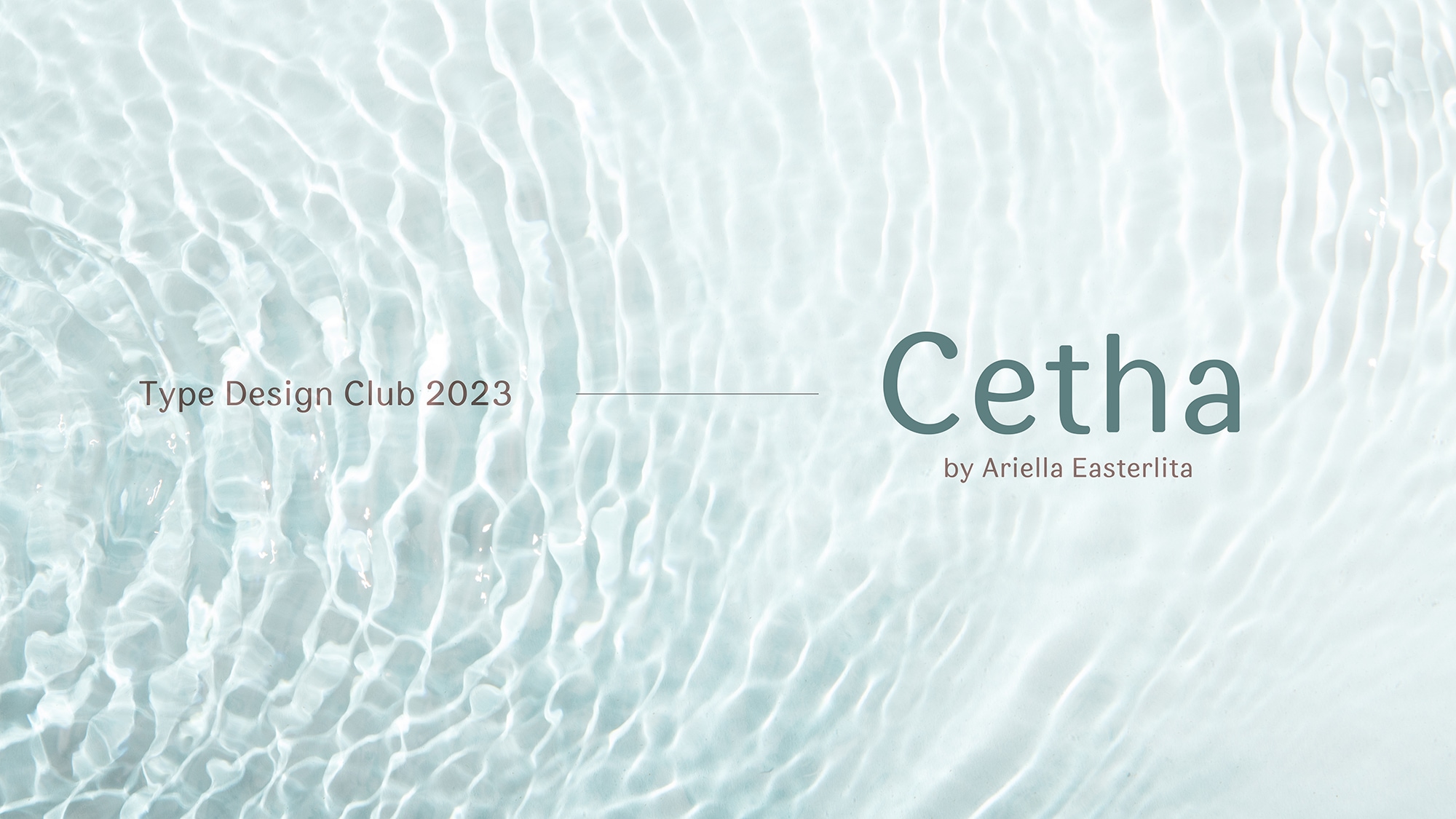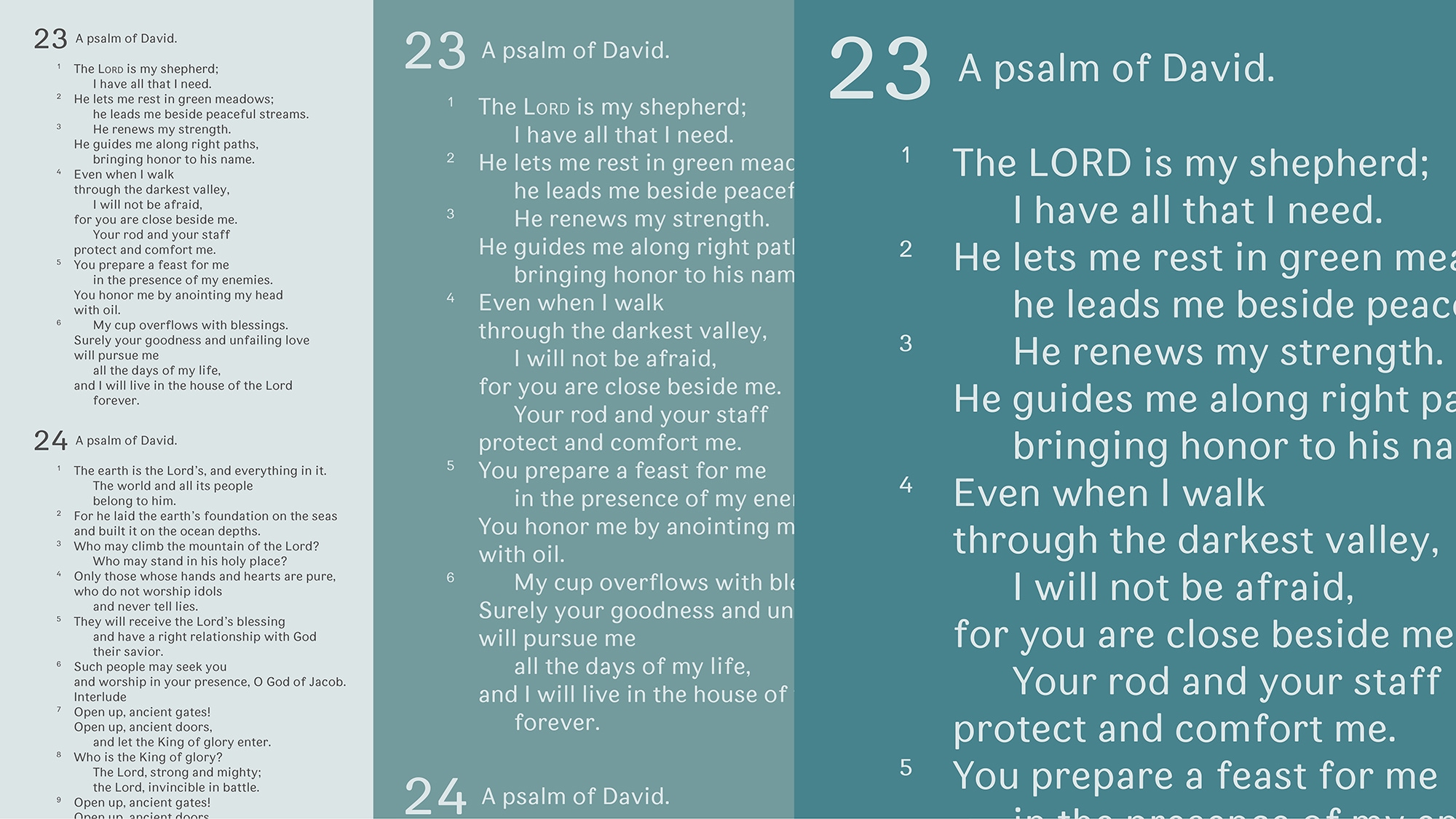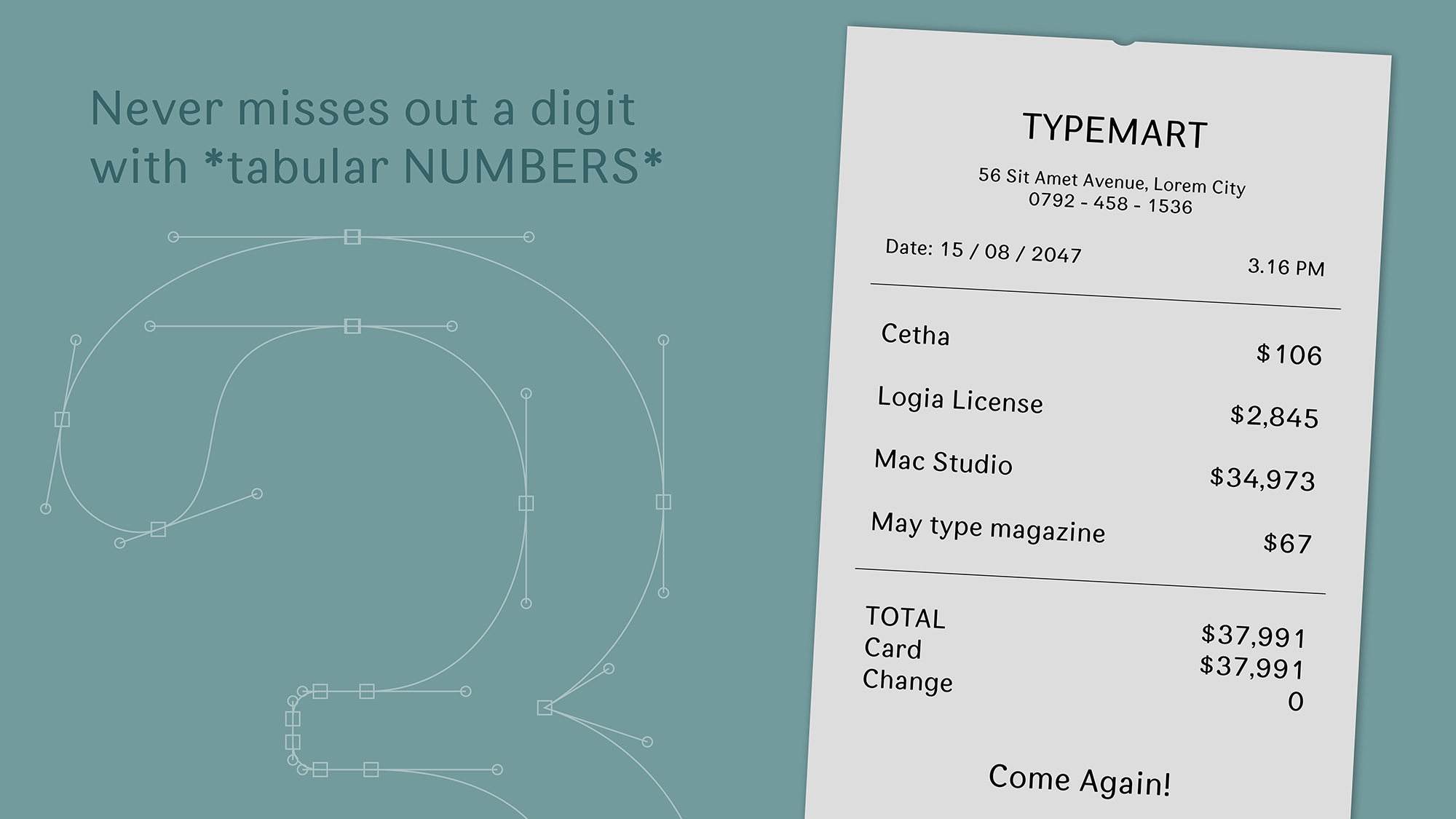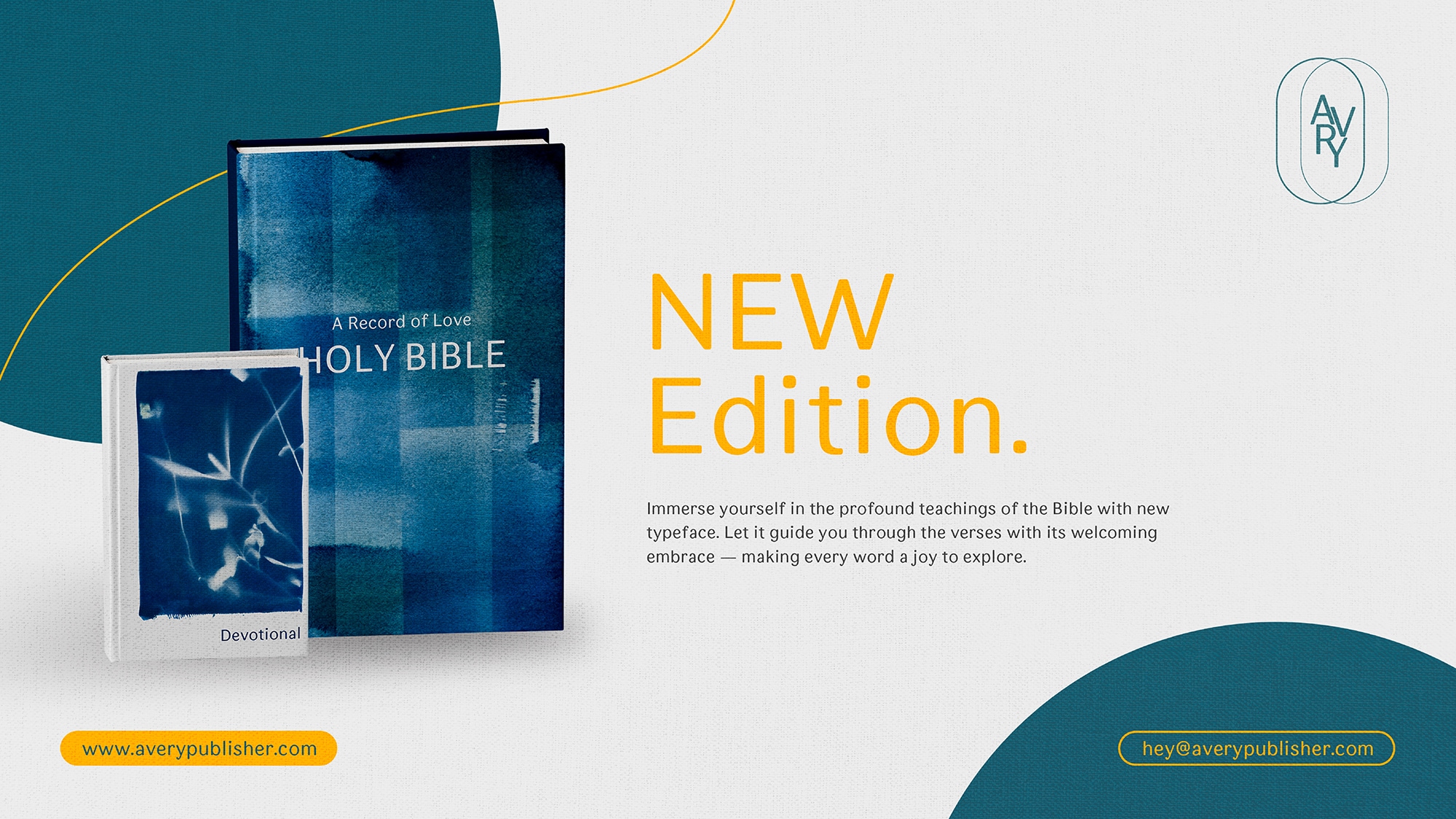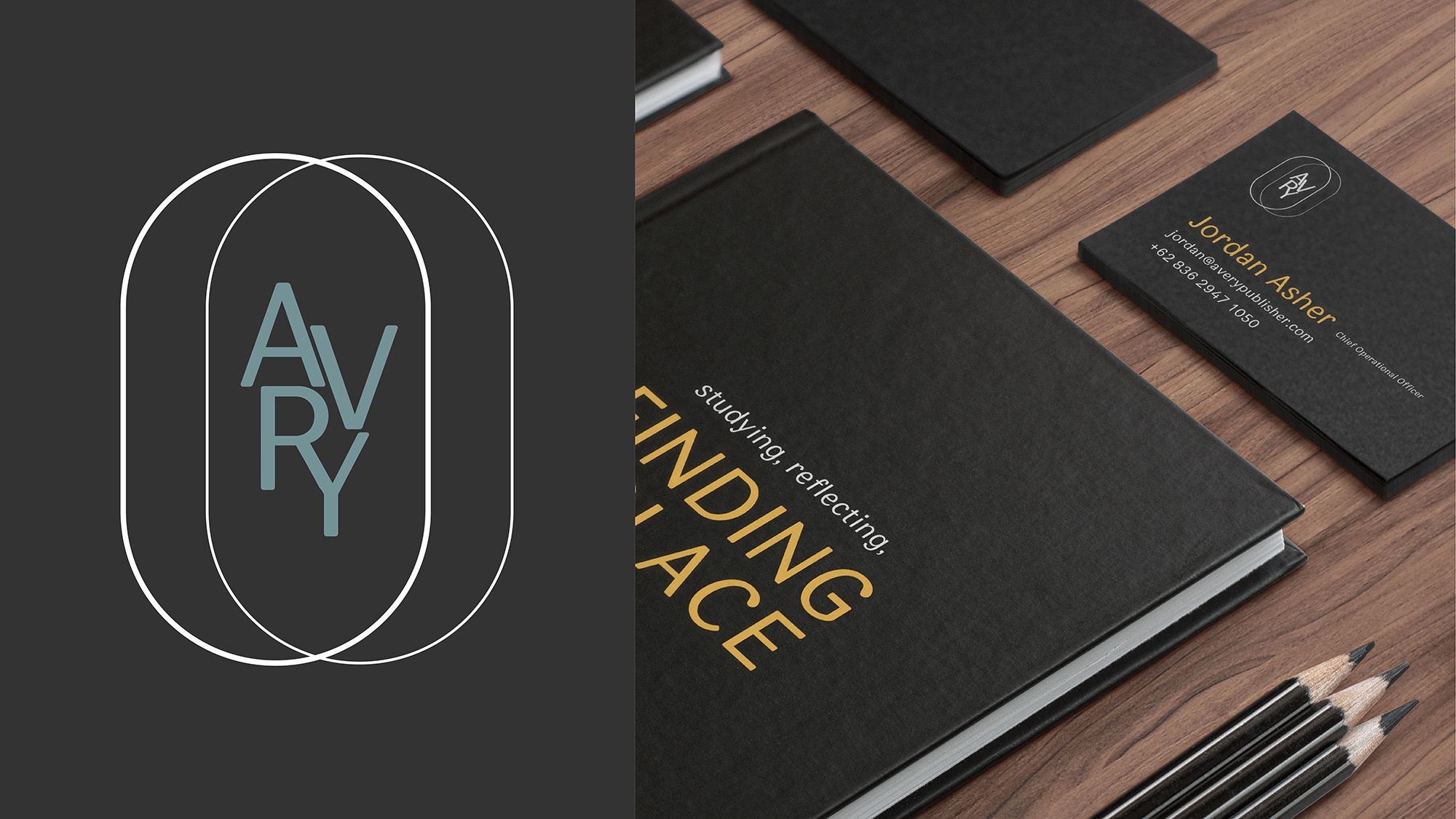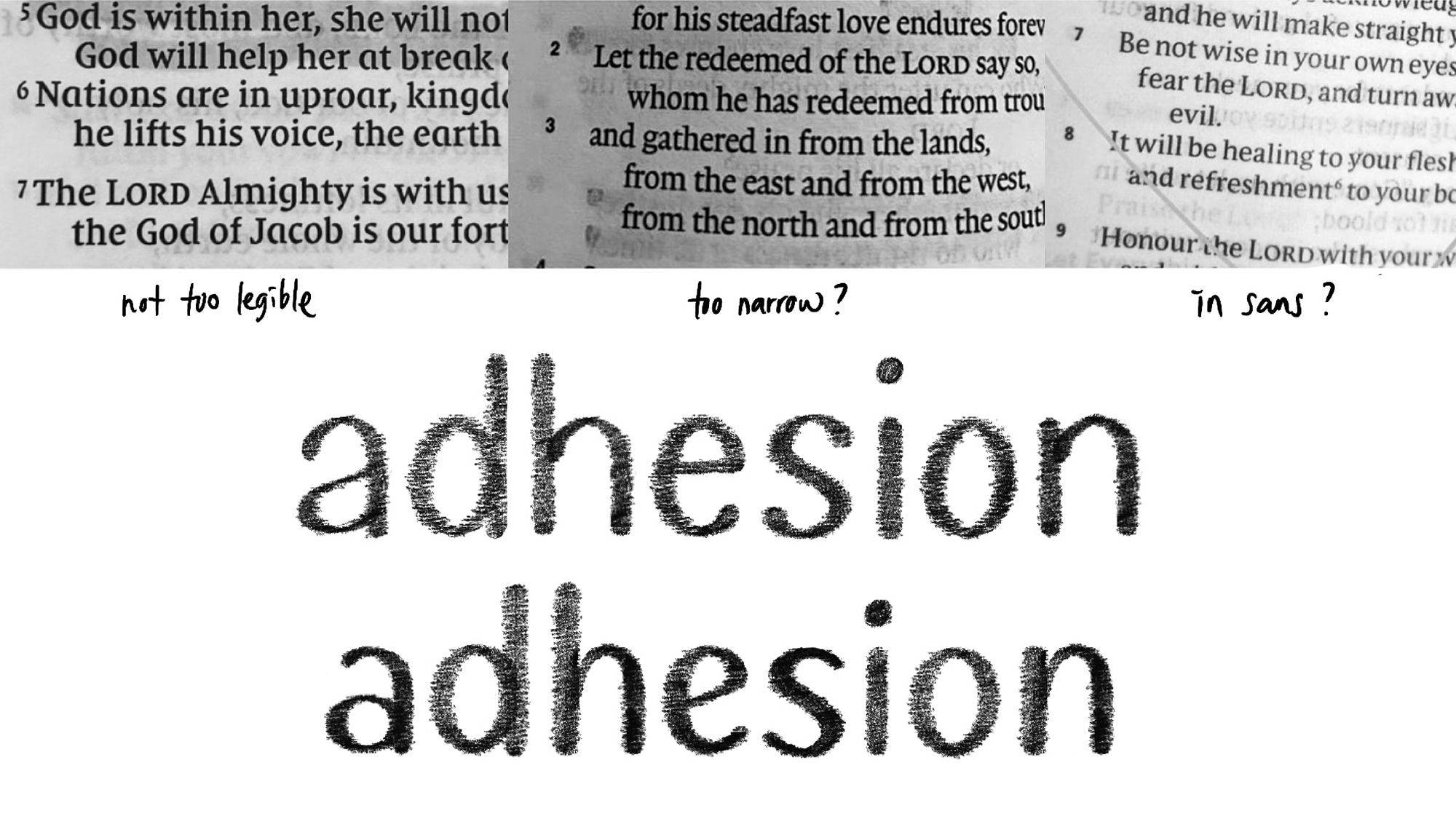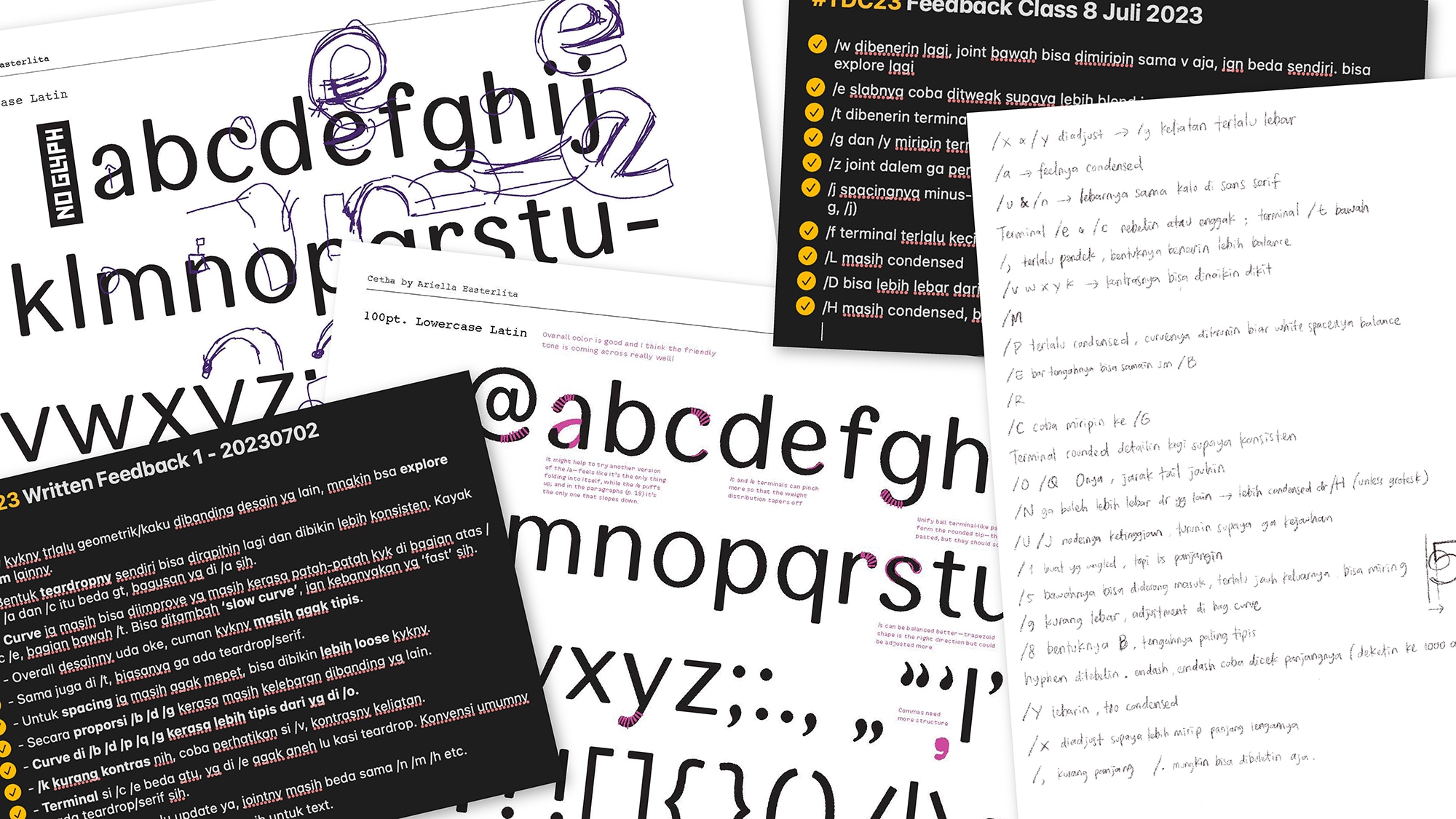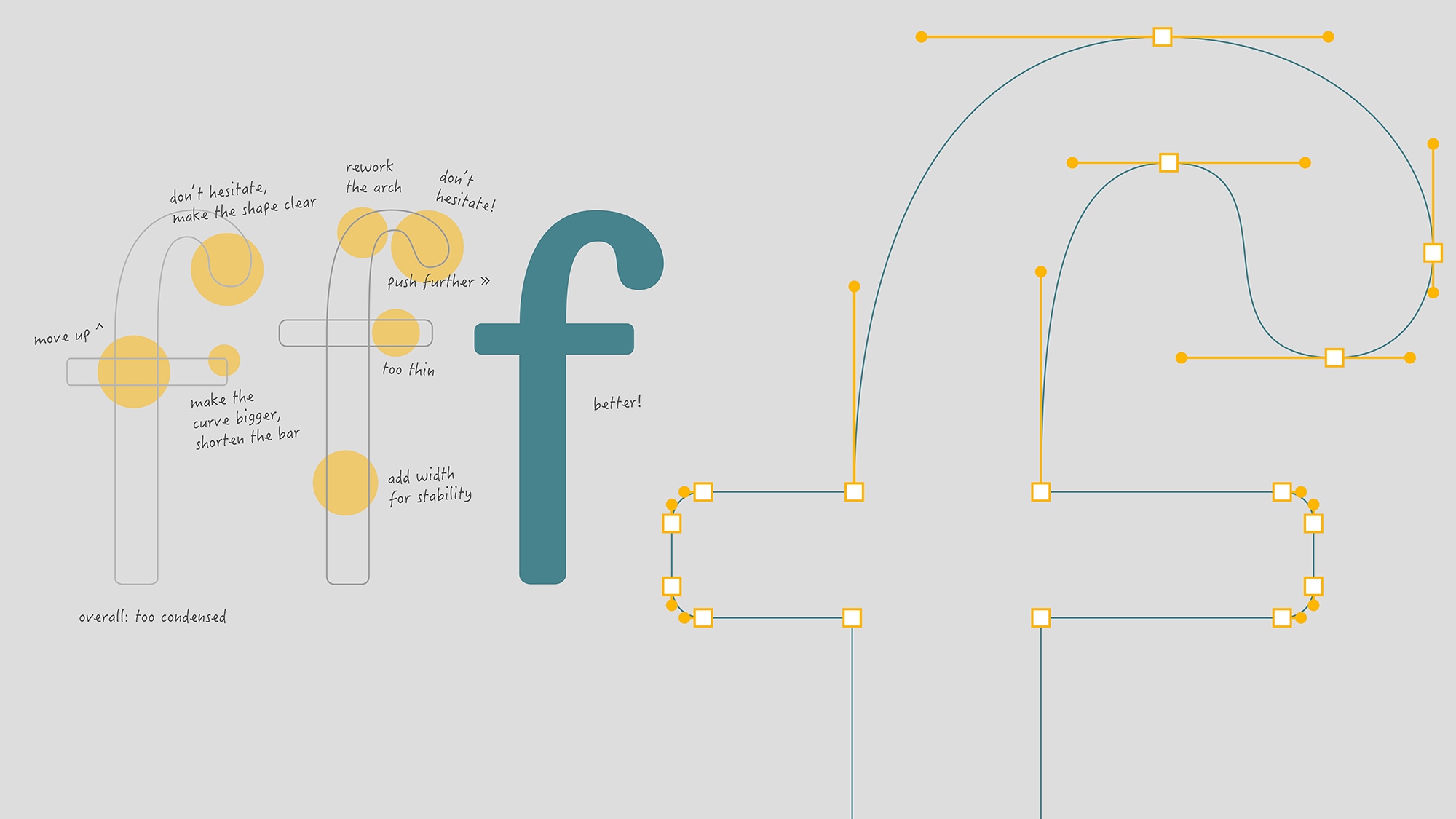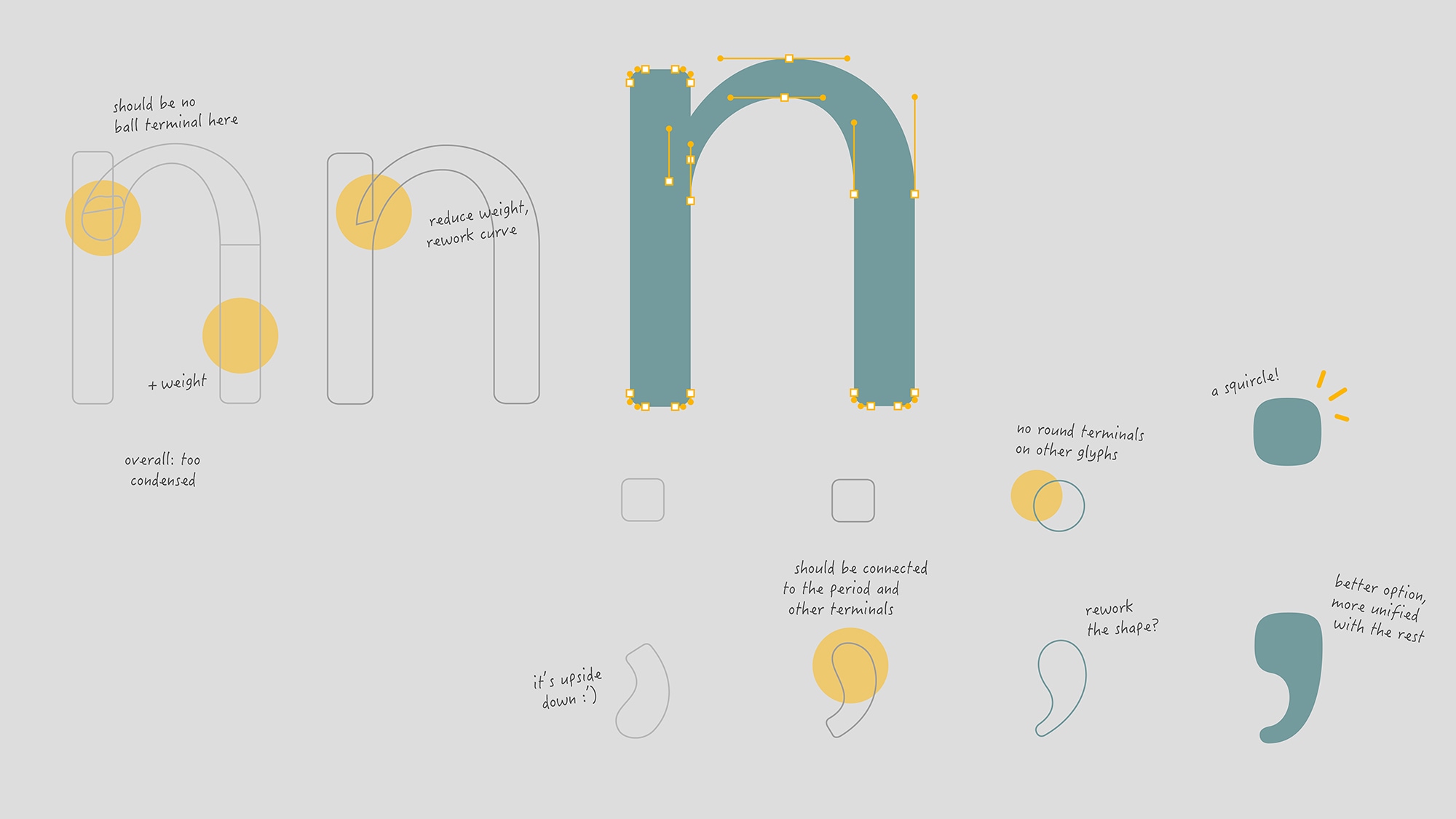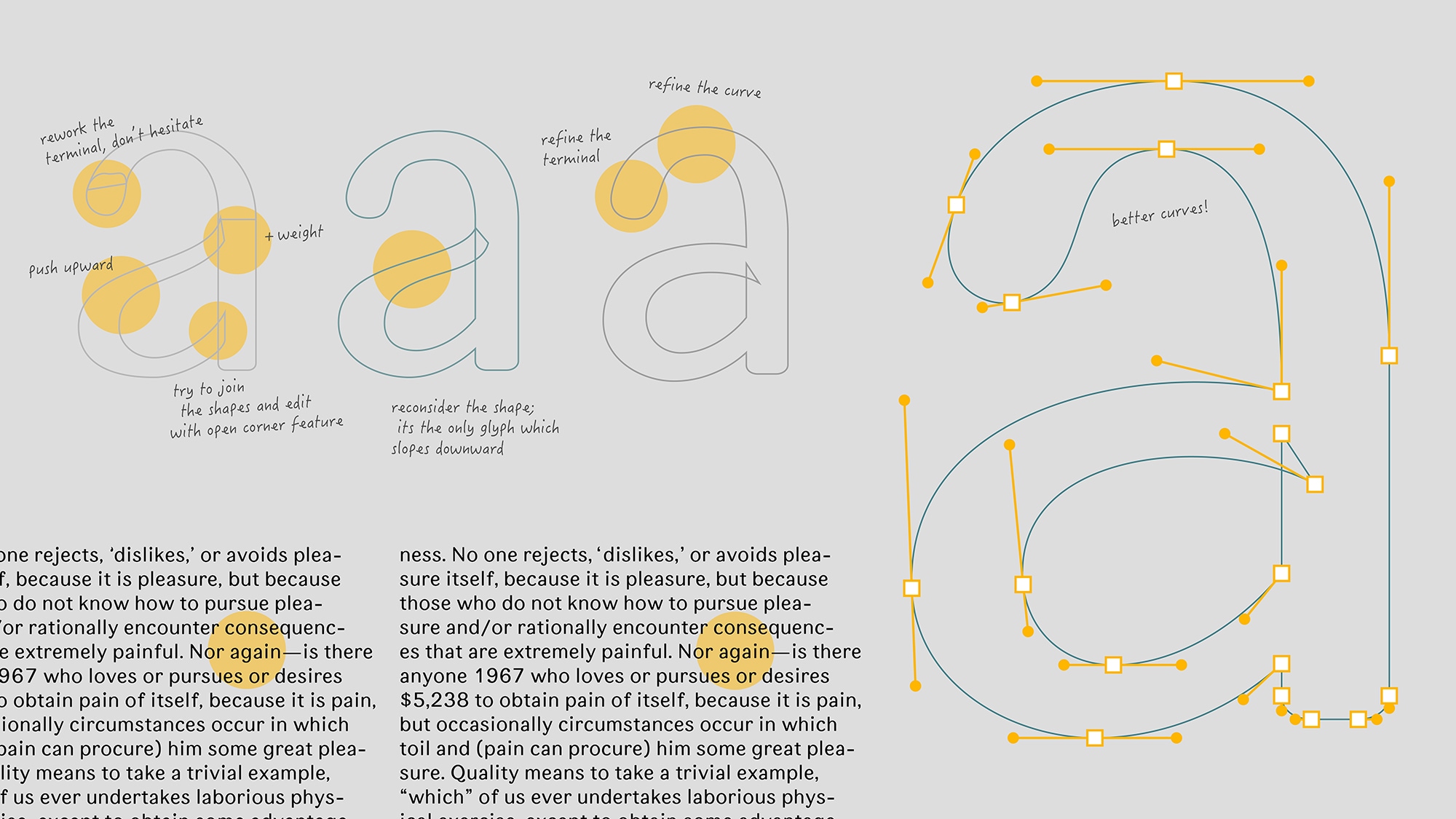
CETHA by ARIELLA EASTERLITA
Cetha is a regular-weight typeface that enhances Bible reading for young adults. It blends teardrop terminals and rounded corners for a welcoming appearance. With tabular numbers, Cetha suits diverse applications, especially extended body texts. Ariella Easterlita, an architect turned self-taught graphic designer, introduced Cetha to make the Bible more accessible to young readers.
CETHA REGULAR